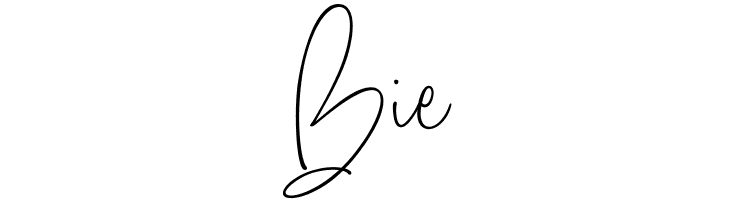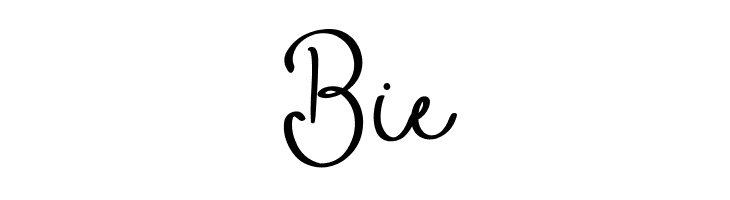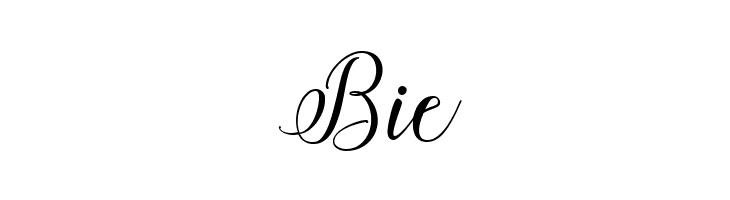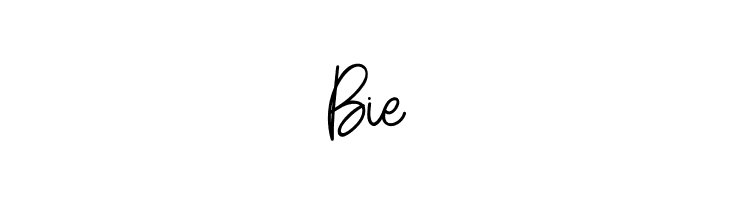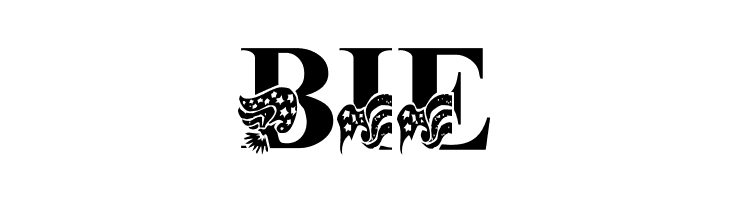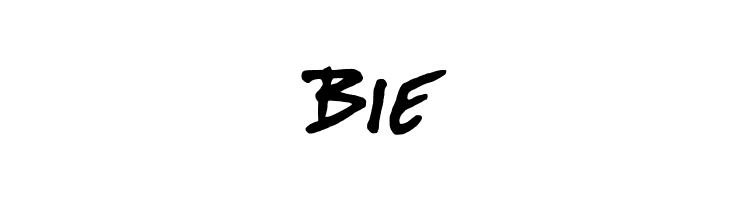
• Amazone BT
• Ambarawa Script
A dynamic script font with fluid, cursive strokes and a natural handwriting style.
• Ambergris Script Free Personal
An elegant script font with flowing cursive style and intricate swashes.
• AmberlynScript-Regular
An elegant script font with flowing, cursive lines and sophisticated style.
• Amboera Script
A lively script font with fluid, continuous strokes and a personal touch.
• Amelia Esthery Script
A graceful and elegant script font with flowing, cursive letterforms.
• Amelia-Script
A casual, flowing handwritten script with elegant, connected letters.
• Amellis
A playful and elegant script font with flowing, cursive letterforms.
• AMERIC_N auTHOrS
A bold, brush-style font with dynamic, hand-drawn strokes.
• America LSF